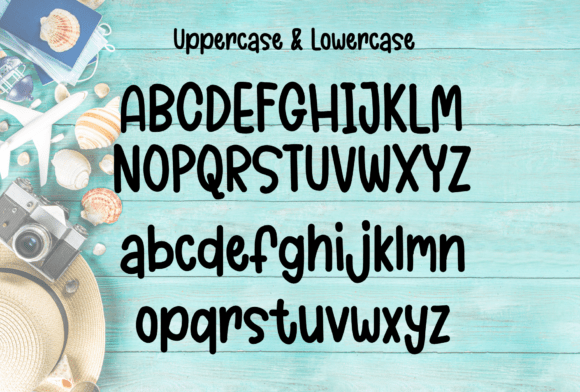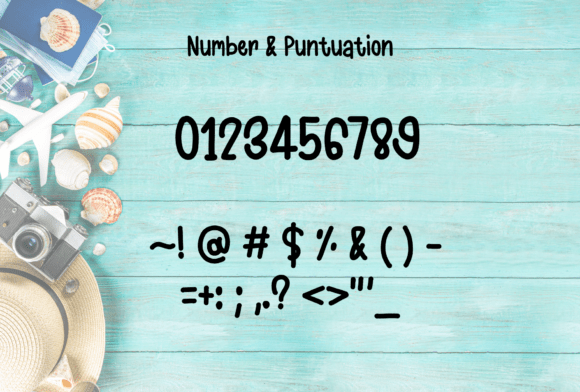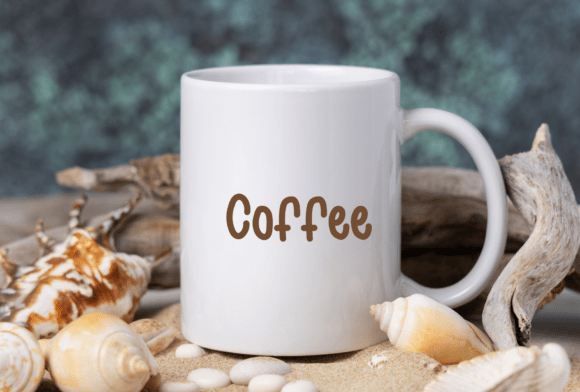
Introduction to Morning Work Font
Morning Work – Fun Handwritten Teacher Font Introduce a touch of playful creativity to your classroom materials with Morning Work, a charming and friendly handwritten font designed specifically for educators and creators.
With its clean, easy-to-read letterforms, this font is perfect for primary school resources, worksheets, and digital designs Whether you are creating daily morning task slides, student name tags, or cute bulletin board displays, Morning Work provides a neat yet whimsical aesthetic that appeals to young learners.